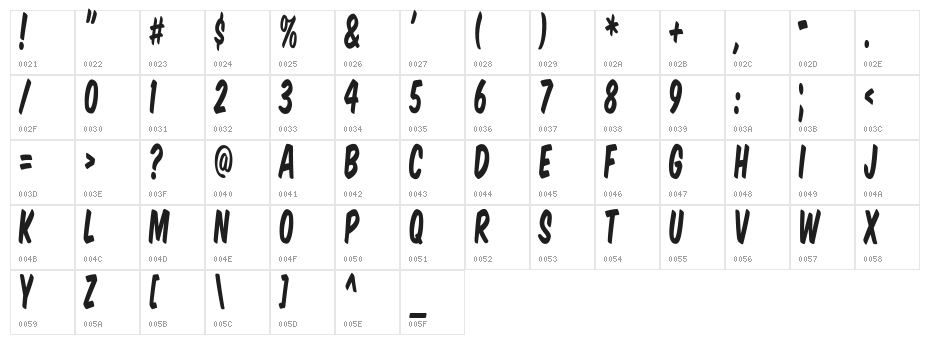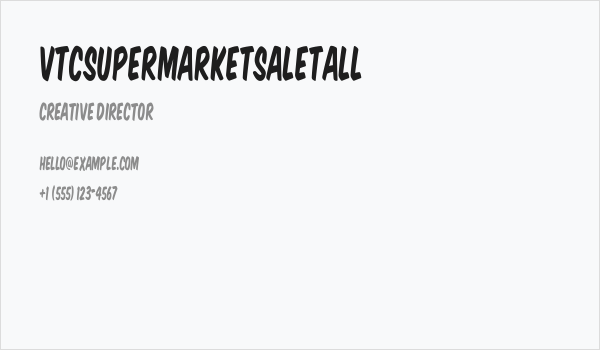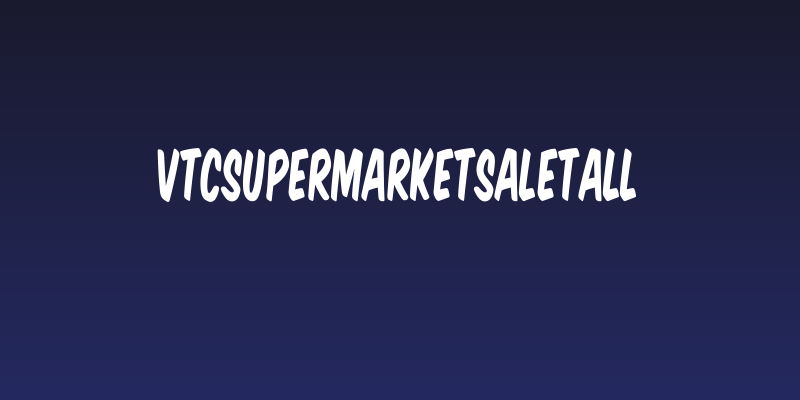
VTCSuperMarketSaleTall Font
VTCSuperMarketSaleTall Description
This font features a bold and dynamic style with tall, narrow characters that convey a sense of urgency and excitement. The letters are slightly slanted, adding a playful and energetic feel. The strokes are thick and consistent, providing a strong visual impact. The numbers and special characters maintain the same boldness, ensuring uniformity across all elements. This font is perfect for grabbing attention and making a statement, ideal for use in advertising and promotional materials.
| Use Case | Headlines, Posters, Advertising |
| Proposed Projects | Ideal for advertising, promotional materials, posters, and headlines. |